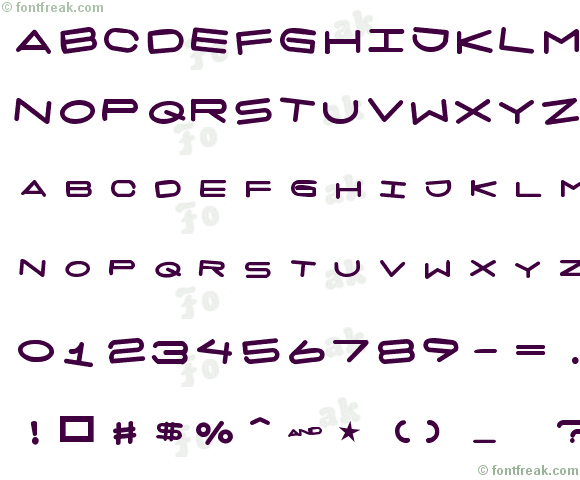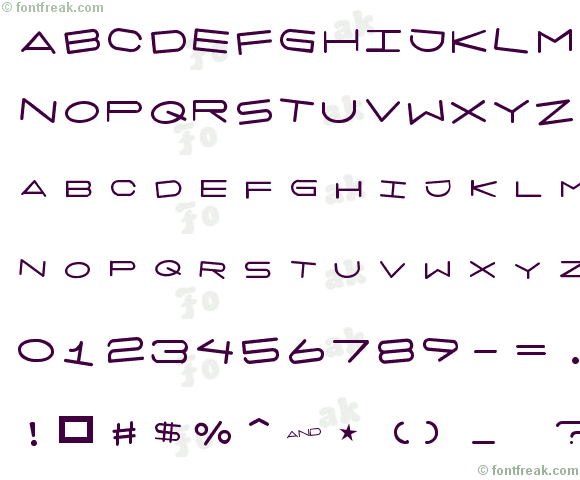
7 days oblique
7 days oblique font preview
7 days fat
7 days fat font preview
7 days rotated
7 days rotated font preview
7 days fat rotated
7 days fat rotated font preview
7 days fat oblique
7 days fat oblique font preview
7 days
7 days font preview
7 Days waterfall preview
7 days oblique — Character Map
7 days oblique character map
7 days fat — Character Map
7 days fat character map
7 days rotated — Character Map
7 days rotated character map
7 days fat rotated — Character Map
7 days fat rotated character map
7 days fat oblique — Character Map
7 days fat oblique character map
7 days — Character Map
7 days character map
7 Days specimen preview
About 7 Days
The "7 Days" font by Pizzadude is a striking display typeface that captures attention with its unique oblique design. This freeware font features a fat stroke weight that provides a bold and impactful look, making it ideal for a range of creative projects. The letters are slightly rotated, adding a dynamic quality that enhances its visual appeal. With a clean and consistent spacing, "7 Days" maintains readability while still being playful and distinct. The font's overall aesthetic is characterized by its rounded edges and a fun, informal vibe that sets it apart from traditional typefaces.
This versatile font is perfect for various use cases, making it a great addition to any designer's toolkit. It works exceptionally well for movie posters, where its energetic style can convey excitement and intrigue. Restaurant menus can benefit from the casual yet eye-catching nature of "7 Days," attracting customers with its inviting appearance. The font is also suitable for event flyers, especially for casual gatherings or parties, where a fun and vibrant typeface can set the mood. Small businesses looking to create a memorable brand identity will find "7 Days" a fantastic choice for logos or promotional materials. Additionally, content creators seeking to add a unique flair to their online projects will appreciate the font’s distinctiveness.
Targeting graphic designers, small business owners, and content creators, "7 Days" offers a fresh and engaging alternative to conventional fonts. This font stands out due to its ability to infuse personality into any design while remaining functional and easy to read. With a "7 Days font free download" option available, it invites everyone to experiment with its playful, energetic style, making it a valuable resource for creative projects. Embrace the charm of "7 Days" and elevate your designs with this exceptional typeface.